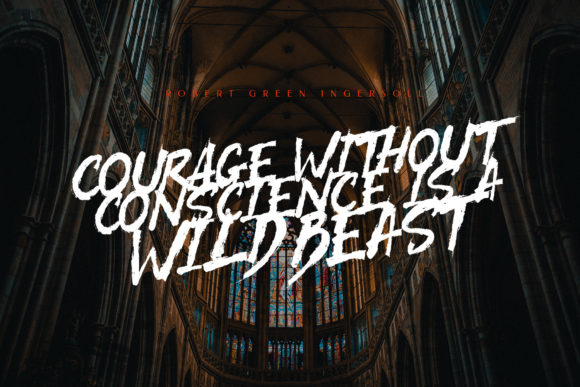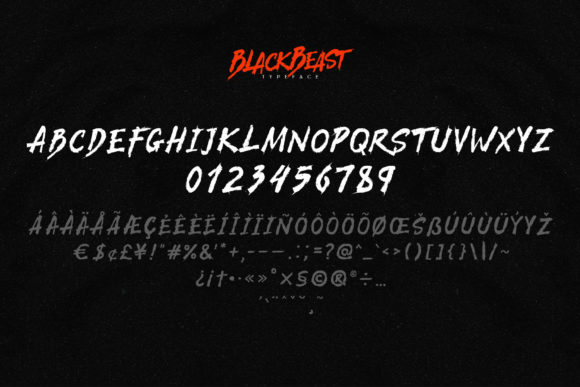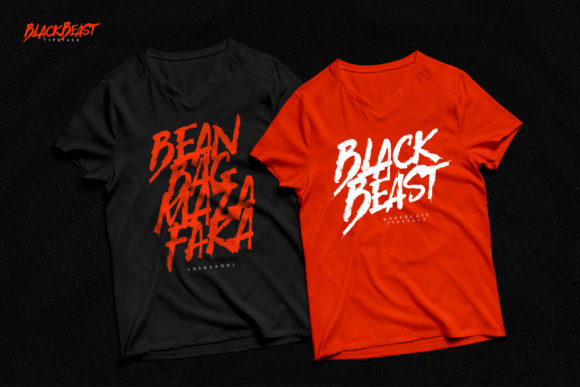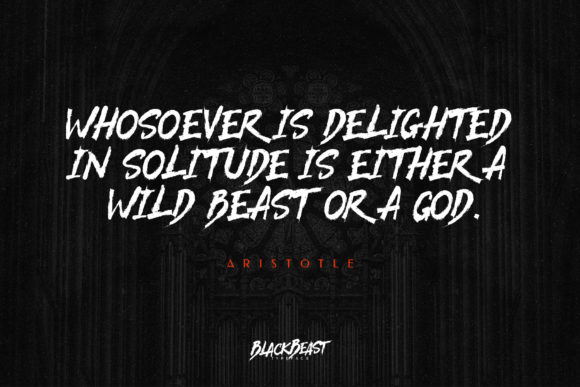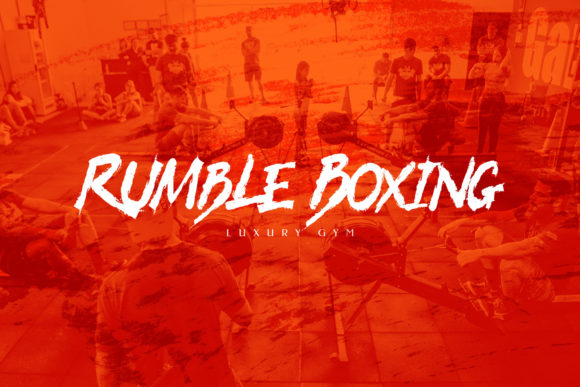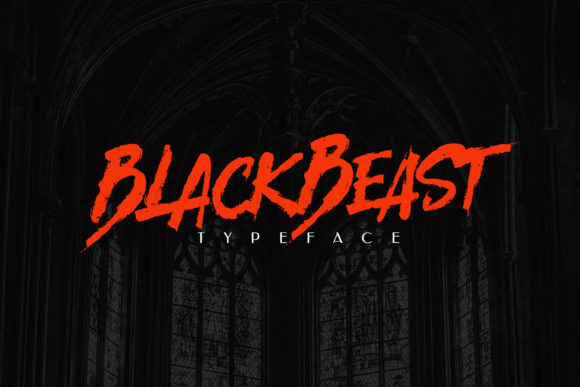
The Ultimate Display Font: Unleashing the Power of BlackBeast
I’ll never forget the time I was working on a project for a sportswear brand, and I just couldn’t find the right font to capture their edgy, adventurous vibe. The client wanted something that would stand out on t-shirts, hats, and other apparel, but everything I tried seemed too bland or overused. That’s when I stumbled upon BlackBeast, a cool, rough textured, and dramatic display font that instantly resonated with the brand’s personality.
An Honest Review of BlackBeast
• 💥 **Impactful and attention-grabbing**: BlackBeast is perfect for making a statement with your designs. Its bold, textured look demands attention and adds an edgy touch to any project.
• ✅ **Versatile**: This font is suitable for a wide range of designs, from t-shirts and sportswear to logos, advertisements, and clothing.
• 🌟 **Unique texture**: The rough, textured quality of BlackBeast gives it a distinctive look that sets it apart from other display fonts.
While BlackBeast is an amazing font, there are a few things to keep in mind:
• 🤔 **Legibility at small sizes**: Due to its textured nature, BlackBeast can be tricky to read at very small font sizes. It’s best used at larger sizes where its unique texture can shine.
• ⚠️ **Limited use in body text**: While BlackBeast is perfect for headlines and titles, it’s not ideal for body text due to its bold, textured look.
One of the standout features of BlackBeast is its OpenType features and glyphs. These allow you to customize your text and add extra visual interest to your designs. Some common OpenType features include:
• Stylistic alternates: These allow you to switch between different versions of a character or glyph.
• Ligatures: These combine two or more characters into a single glyph.
• Swashes: These add decorative flourishes to your text.
The Backstory of BlackBeast
BlackBeast was designed by a team of creatives who wanted to create a font that would capture the essence of adventure and rebellion. Inspired by the wild west and the great outdoors, BlackBeast is a font that’s meant to evoke a sense of danger and excitement.
Q: What is BlackBeast font?
A: BlackBeast is a cool, rough textured, and dramatic display font suitable for designs such as t-shirts, sportswear, logos, advertisements, clothing, and more.
Q: Is BlackBeast suitable for body text?
A: No, BlackBeast is best used for headlines and titles due to its bold, textured look. It’s not ideal for body text.
Q: Is BlackBeast available in different weights or styles?
A: Yes, BlackBeast comes in a range of weights and styles, allowing you to customize your text to fit your design needs.